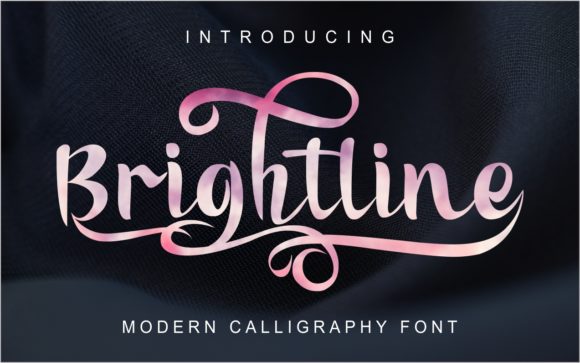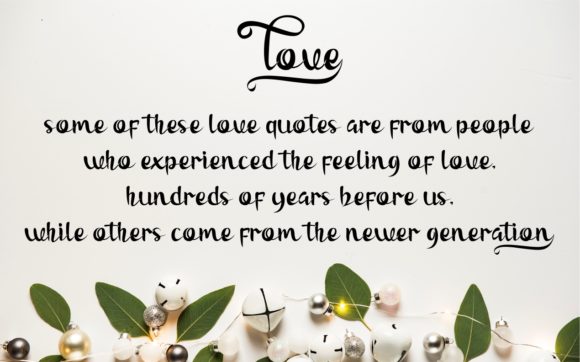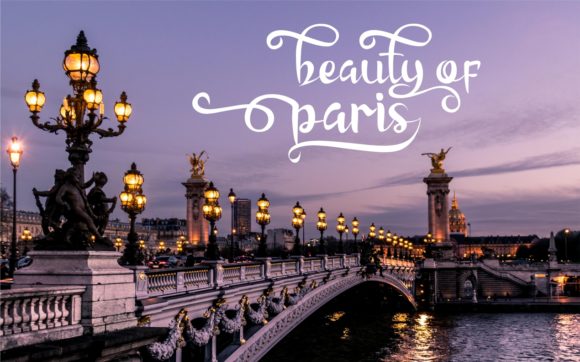
Brightline Font
About Brightline Font
The Brightline is a modern calligraphy font which can be used for posters, banners, quotes, restaurants and cafe’s, food branding and much more.